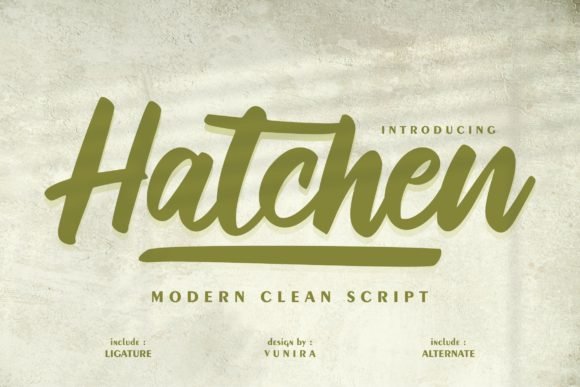
Discover the Perfect Blend of Style and Sophistication with Hatchen Font
You know that moment when you’re brainstorming ideas for a new project and everything just clicks? The words flow effortlessly, and the design starts to take shape in your mind’s eye. It’s exhilarating, isn’t it? That’s exactly what happens when you add Hatchen Font to your creative toolbox. This stunning, bold, and brushed handwritten font is the perfect addition to any fashion branding or editorial design.
What sets Hatchen Font apart is its ability to convey a sense of sophistication and style, making it an invaluable asset for designers looking to elevate their work. Its smooth curves and elegant lines add a touch of class to any project, ensuring that your message is conveyed with confidence and flair. Whether you’re a seasoned pro or just starting out, Hatchen Font is an essential tool to add to your design arsenal.
Hatchen Font Key Features
- Unique Characteristics: Hatchen Font features a unique blend of modern and vintage elements, with intricate details and textures that give it a distinctive look.
Hatchen Font Review
Overall, I think the Hatchen Font has some nice qualities that make it a solid addition to any design project. ✨ The font’s unique blend of modern and vintage elements creates a visually appealing aesthetic that can add a touch of whimsy to text-based content. ✨ The font’s high level of customization options is also a major plus, allowing designers to tailor the look and feel to suit their specific needs.
However, there are a few limitations to consider. ⚠️ For one, the font may not be the most readable in smaller sizes, which could be a concern for designers who need to use it in body text or other areas where legibility is crucial. ⚠️ Additionally, some users have reported issues with the font’s compatibility across different operating systems and devices.
- Unique blend of modern and vintage elements
- High level of customization options
- Support for various languages
- Works well in larger font sizes
Despite its limitations, I think the Hatchen Font is a great choice for designers who want to add a touch of personality to their projects. With a little bit of careful planning and consideration, it can be a valuable asset in any design toolbox.
For best results, use Hatchen Font for headings and titles, and pair it with a clean sans-serif font for body text.
Hatchen Font is ideal for:
1. Creative and artistic projects.
2. Titles and headings.
3. Branding and logo design.
4. Infographics and visual content.